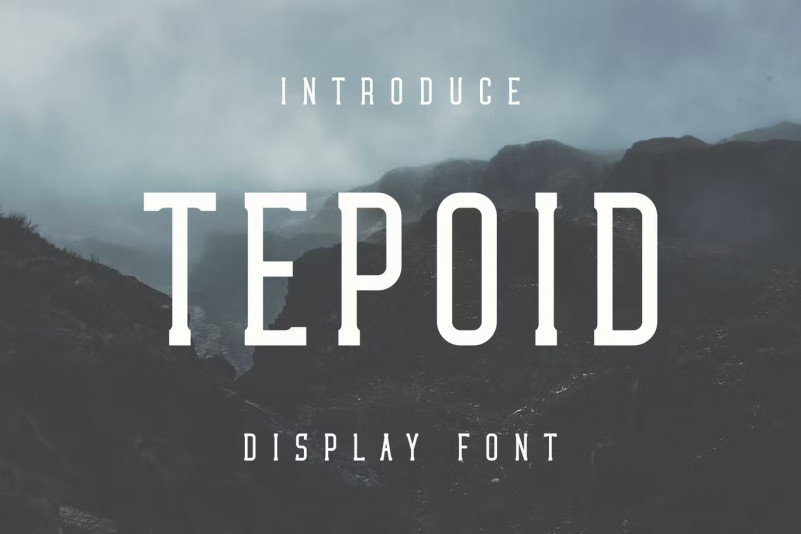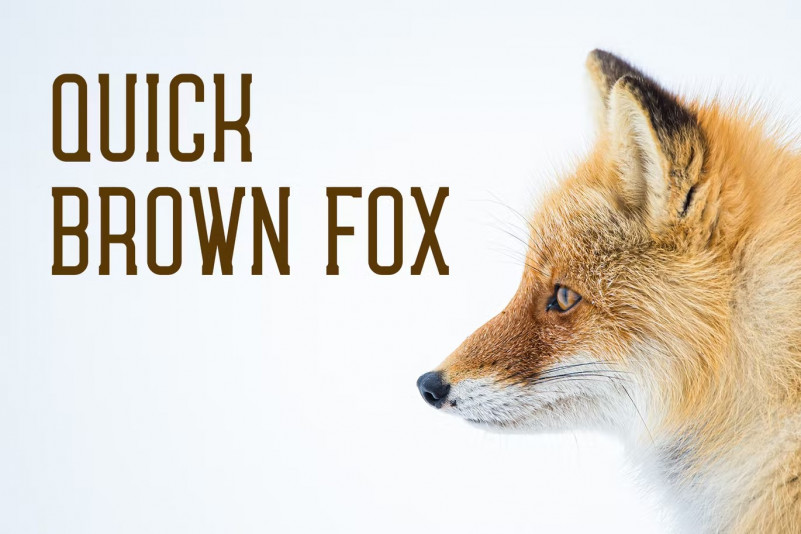
Tepoid Font
Tepoid Font Perfectly suited on print/screen. it’s perfect for Branding, name card, poster, logo, magazine, cover, banner, tshirt and headers, or even large-scale artwork.